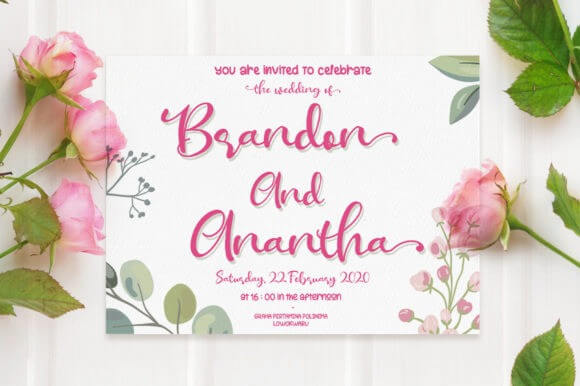
Ballisty Calligraphy Font
Balistic is a delicate script and calligraphy typeface with a romantic feel. It has lovely and well-balanced qualities, and as a result, it goes with a wide range of styles. Add this font to your most imaginative ideas and see how they come to life! Because this font is PUA encoded, you can easily access all of the glyphs and swashes. Ballistic.otf and Ballistic.ttf are the two formats available for the font. The font is designed and shared by black studio.
The calligraphy and script fonts are wonderful choices for Headings, signatures, logos, wedding invitations, t-shirts, letterhead, signage, labels, news, posters, badges, and other uses. The font looks fantastic on yellow or orange backgrounds. This typeface can be used in any beverage company’s wallpaper or posters. It can also be used in any bottle or can of cold drink.
| Name | Ballisty Calligraphy Font |
| Style | Script, Calligraphy |
| Designer | Black Studio |